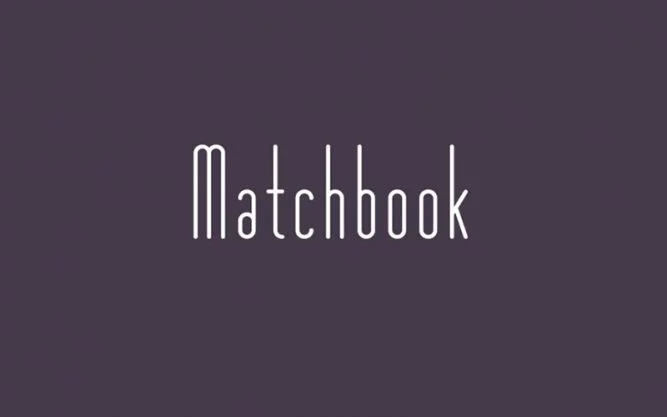
Matchbook Font is a basic, sans serif typeface that extraordinary display font can be used for large displays, branding, logos, prints, headings, digital, book covers, and everything in between.
This amazing typeface was designed by One by Four. It comes in only one style and is created in a unique way in which you will see that the designer has increased and decreased its extra height with a decent flow.
That way, you can use it for bold titles, fonts, and font pairing situations with others. Because it has a clean texture that can be easily adjusted with other sans serifs or serif fonts.
Another amazing aspect of it is the slim texture that looks stylish even at length. So, it definitely works beautifully when you need fonts for a stylish look. So, please download it on anchor fonts and enjoy it.
Matchbook Font
Each stroke terminals usually end in a straight line just to maintain a professional look. That’s why it makes a great combo with other basic font families. You can see it in the pictures.
With this font help, you can create a logo, book cover, emblems, card printing, t-shirt printing, game graphics, magazines, books, shopping bags, product design, mugs, as well as many other awesome things.